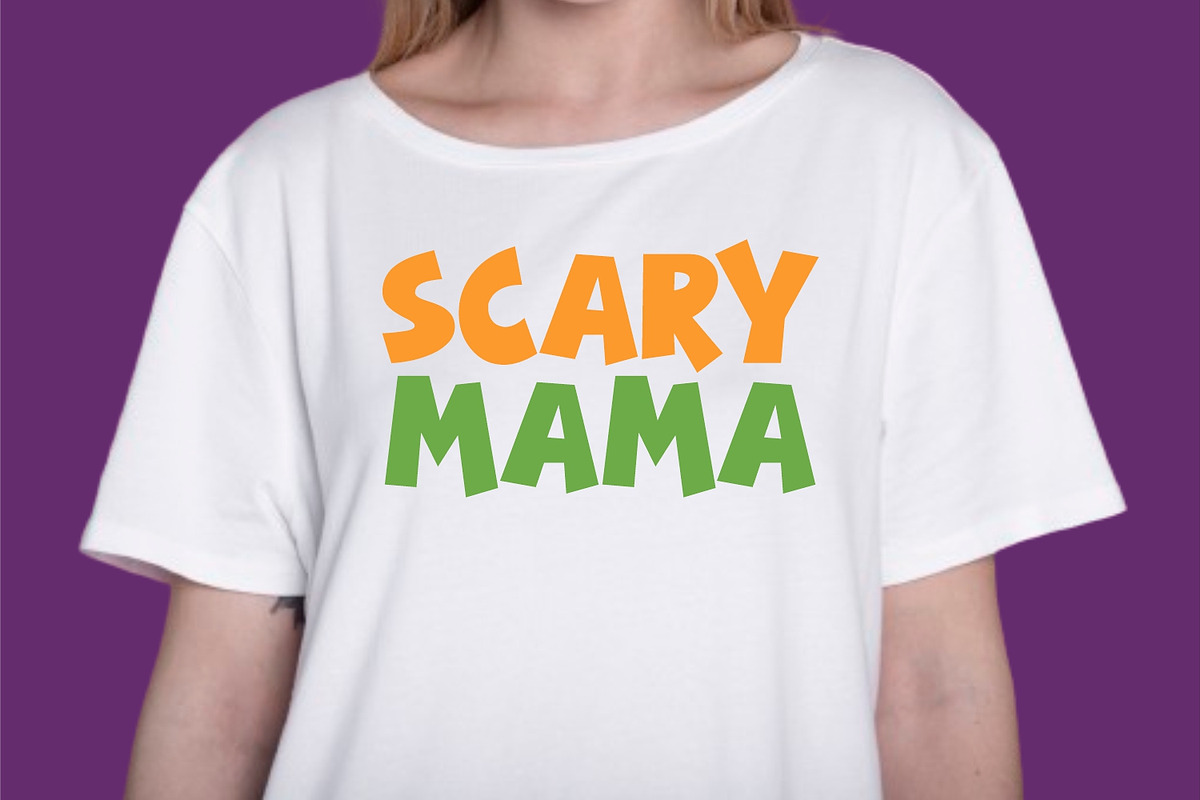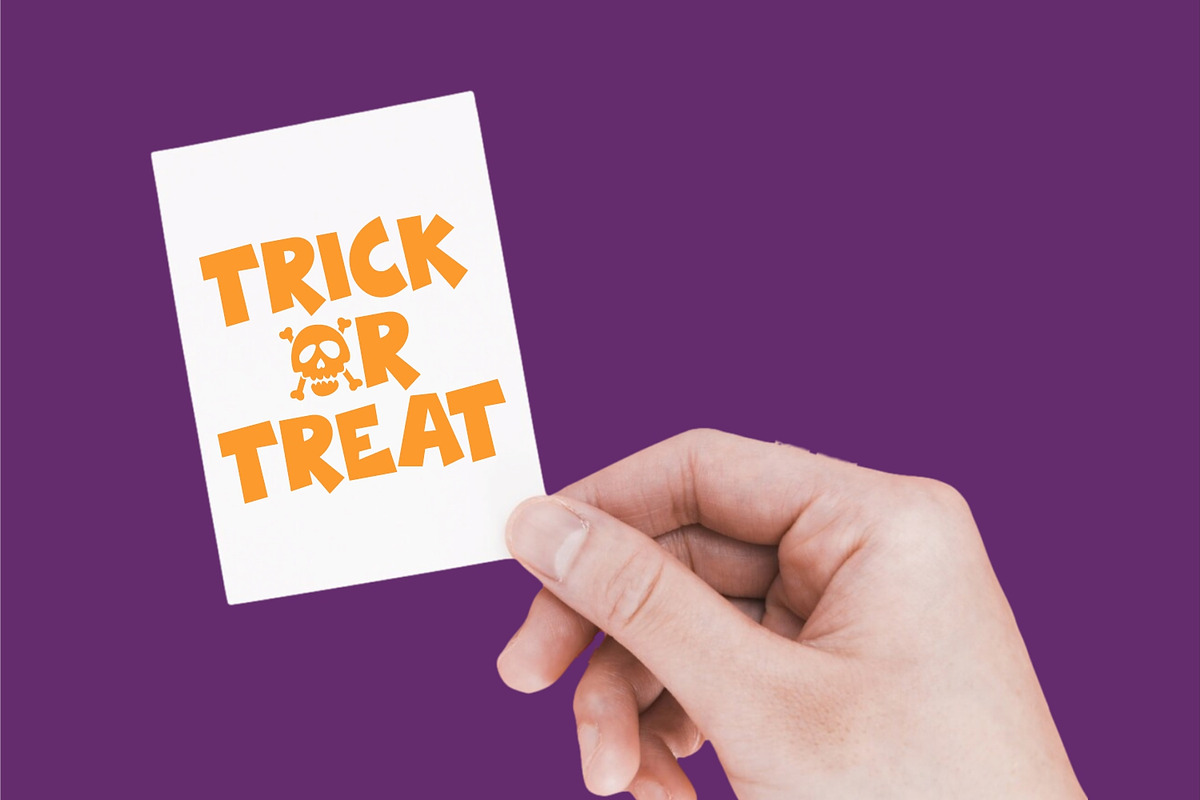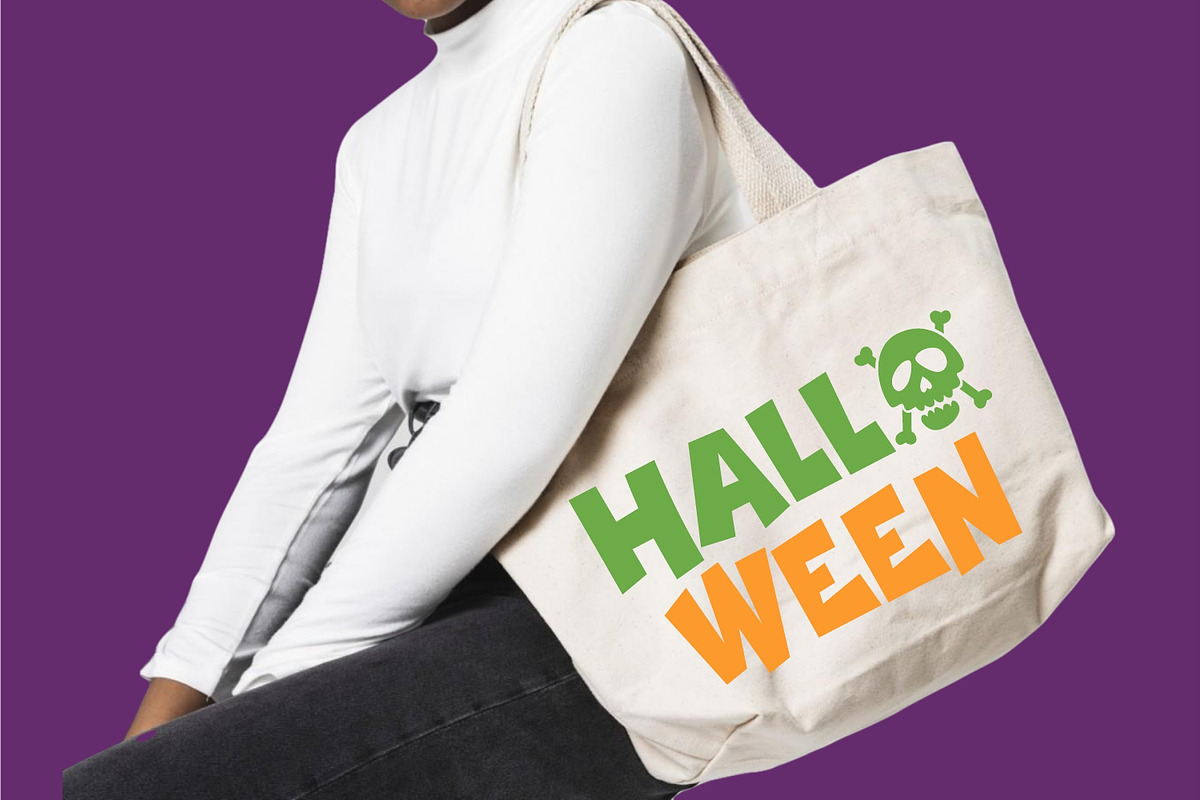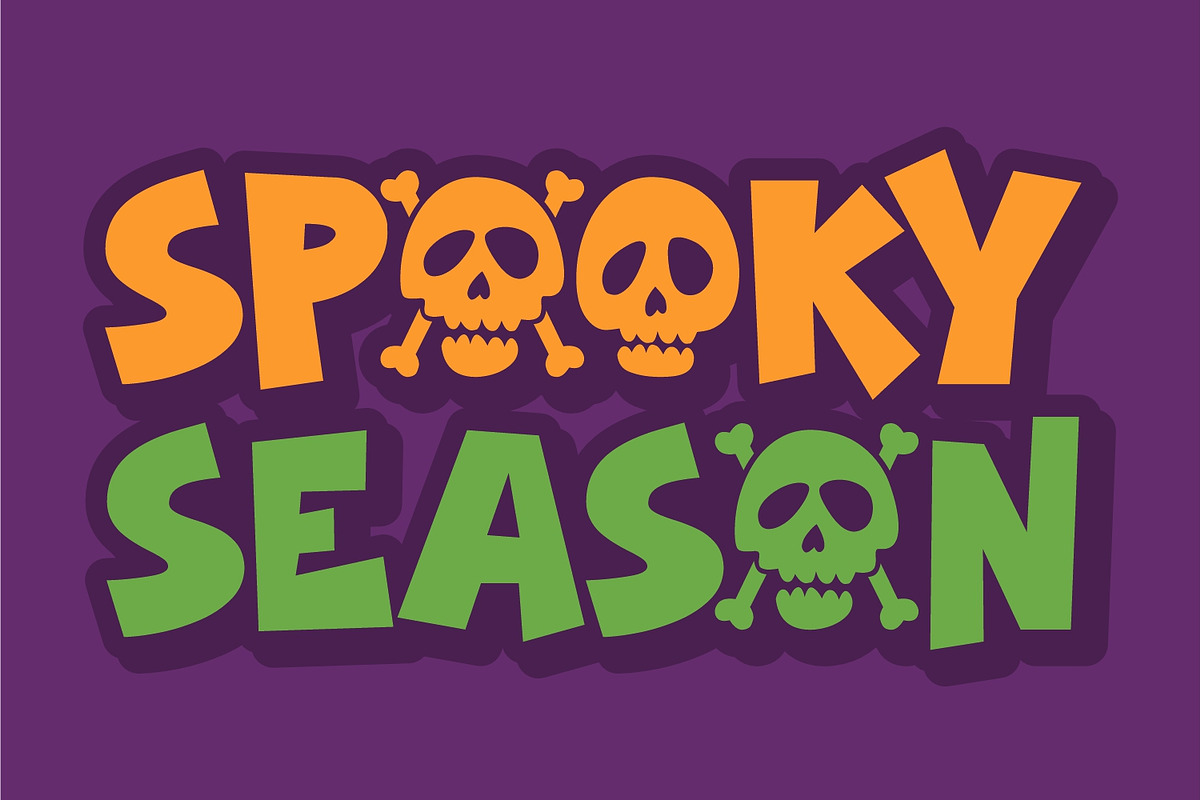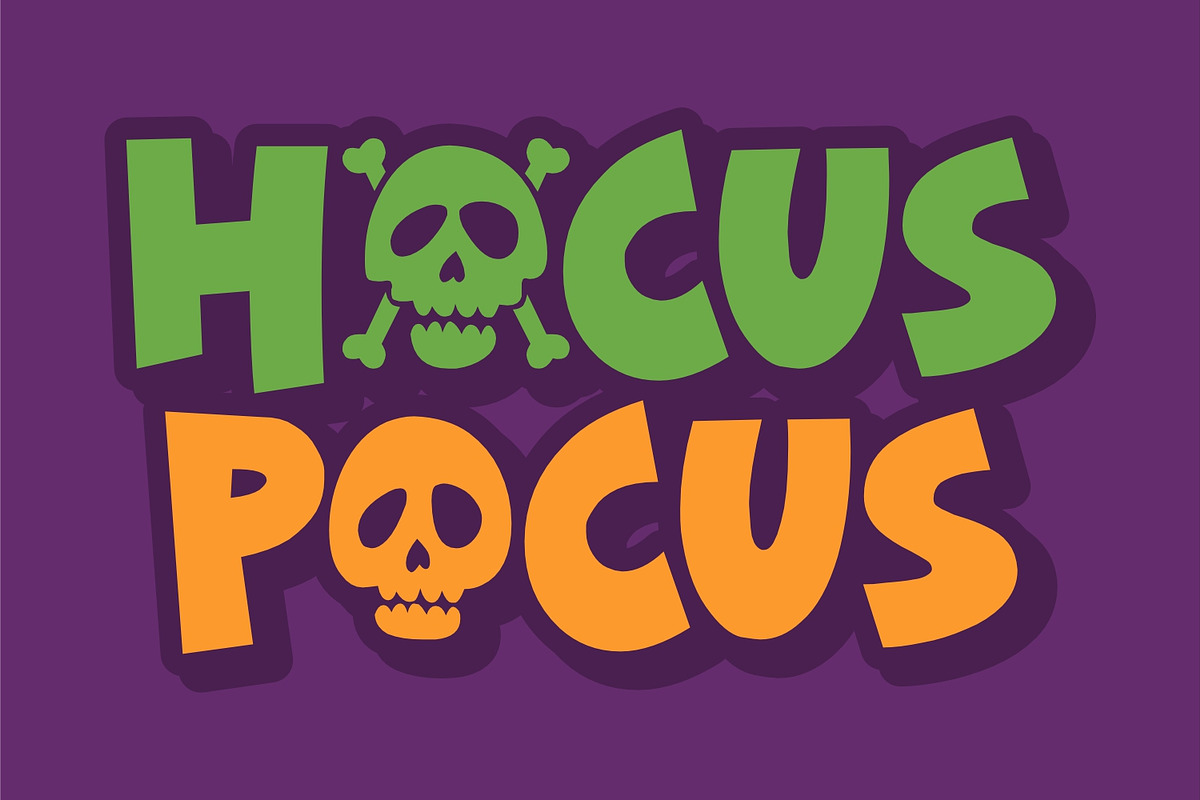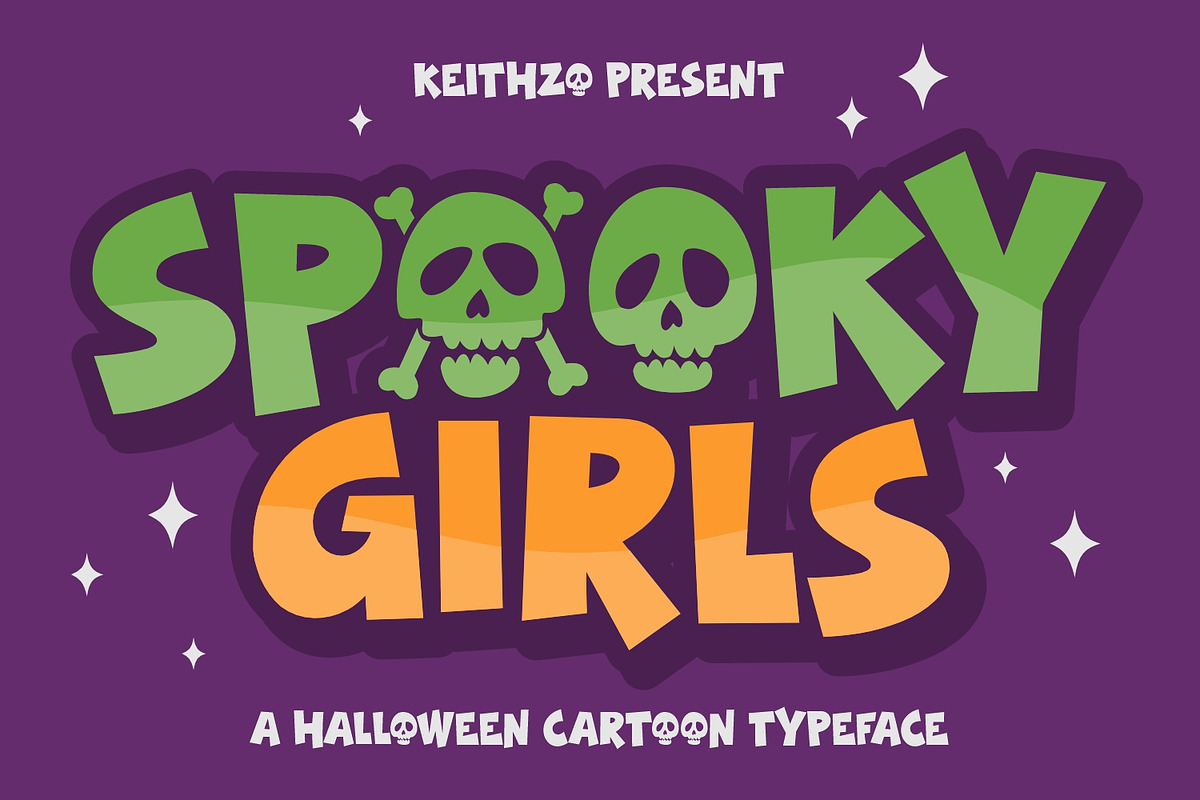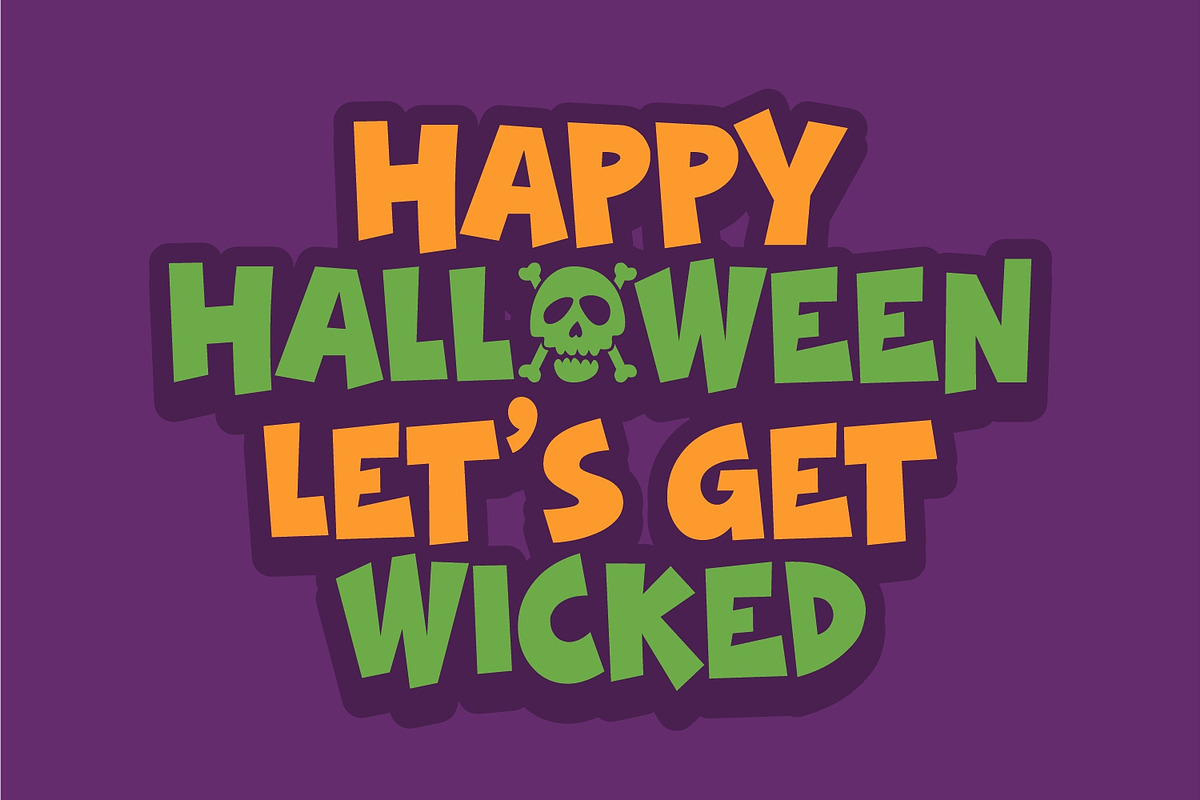
Spooky Girls - Halloween Font
Immerse yourself in the Halloween spirit with Spooky Girls, an enchanting cartoon font that beautifully marries the cute with the eerie. Its striking features evoke both fun and fear, making it the perfect choice to bring the Halloween season to life. Not just confined to the season of spookiness, Spooky Girls carries a festive vibe, making it ideal for different themed children’s designs. An added advantage of this charming font is its user-friendly compatibility with Cricut machines and sublime printing, streamlining your design processes. Whether you’re crafting a Halloween poster or a child’s birthday invitation, Spooky Girls is the font that lets you spin a visual tale of thrill and merriment.